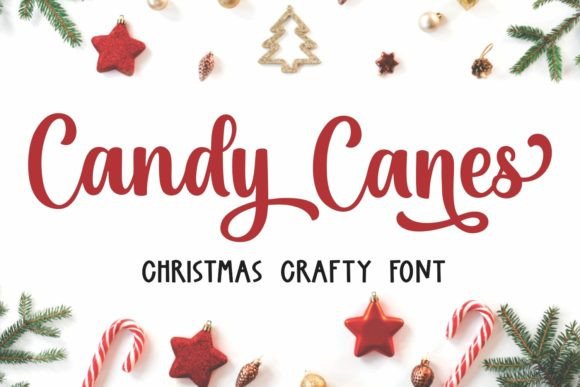
Introducing the enchanting "Candy Canes" Font – a script typeface that exudes the magic and joy of the holiday season in every elegant curve and playful swirl. Created by Unitype, this whimsical font takes you on a delightful journey through a winter wonderland, where each character embodies the spirit of festive cheer.
Imagine the giddy excitement of a child on a snowy day, their laughter echoing through the crisp air. The Candy Canes font captures that same sense of wonder and spontaneity, as if each letter was lovingly hand-drawn with candy canes dipped in sweet icing sugar. The strokes and curls mimic the whimsical path of snowflakes dancing in the brisk winter breeze, adding a touch of playfulness to any project.
Whether you're designing greeting cards, crafting festive banners, or enhancing the packaging of holiday treats, the Candy Canes font infuses a dash of childlike joy into every creation. It sprinkles a sense of magic onto invitations, newsletters, and any design endeavor that craves a touch of whimsy.
Embrace the holiday spirit and let the Candy Canes font bring your ideas to life. Transform ordinary designs into extraordinary works of art that captivate and enchant. Embody the essence of holiday joy and merriment with this captivating typeface.